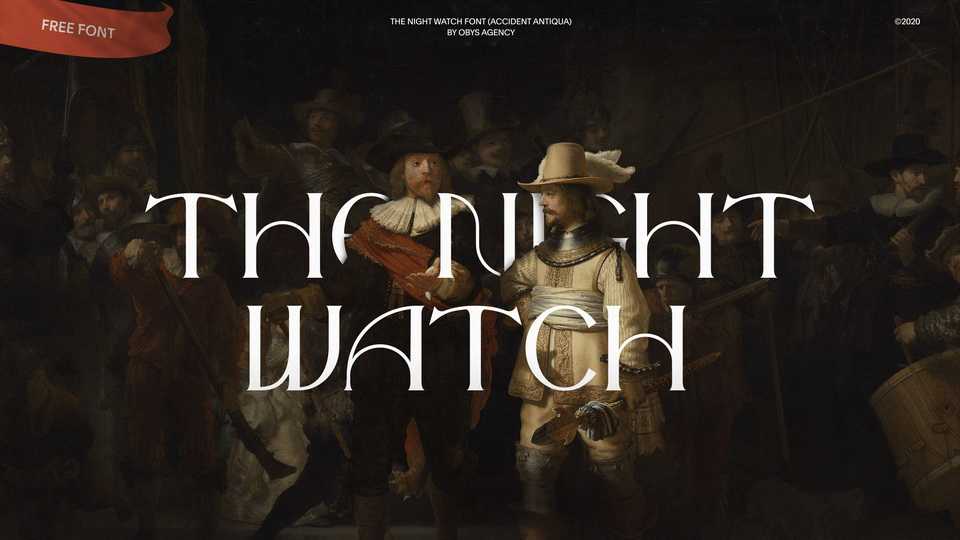
Download The Night Watch font, an exquisite created serif typeface with rounded forms. The Night Watch will give your design unique luxurious feel with and help to create a beautiful and powerful statement to any typographic composition.
Designer: Obys Type Foundry